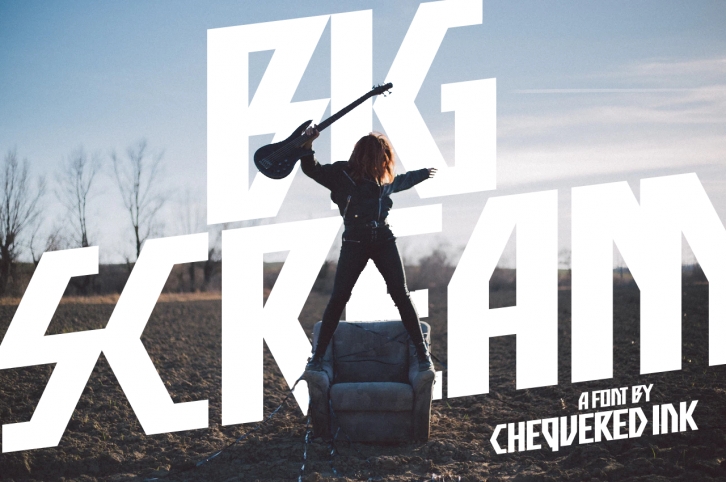
Big Scream is a bold and thick lettered display font. Add it confidently to your projects, and you will love the results. The only limit is your imagination.